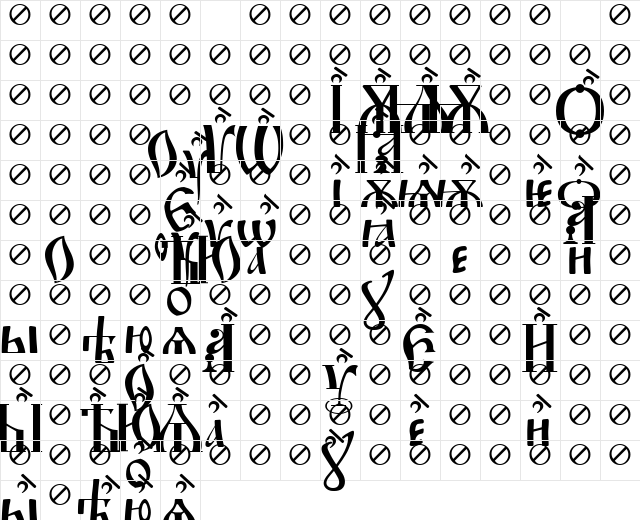
Irmologion BrthGrave Normal
Design Context for Irmologion BrthGrave Typeface
Irmologion BrthGrave is a composed and adaptable typeface that performs quietly and consistently across a wide range of design contexts.